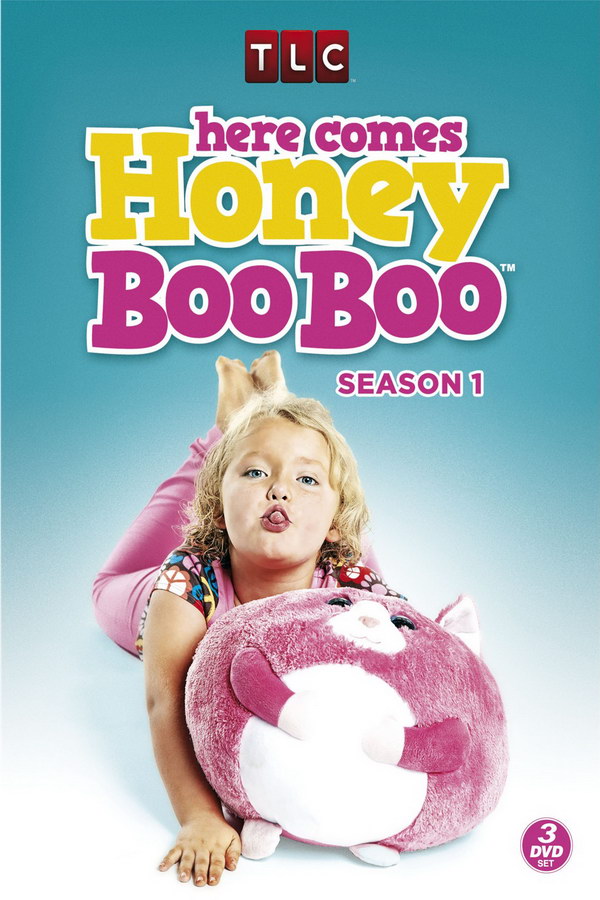
Here Comes Honey Boo Boo Font
HVD Comic Serif Pro, designed by Hannes von Döhren in 2009, is the font used for the title of the TV series. Originally created as a free alternative to Comic Sans, the font became popular, and a pro version with expanded language support was developed. More details about the pro version can be found here.